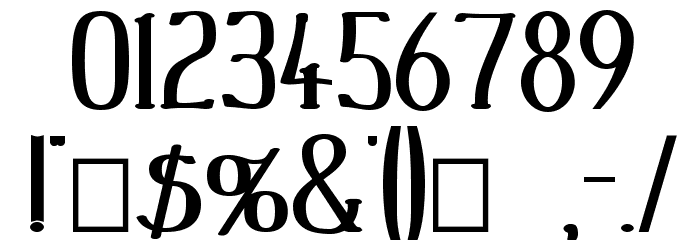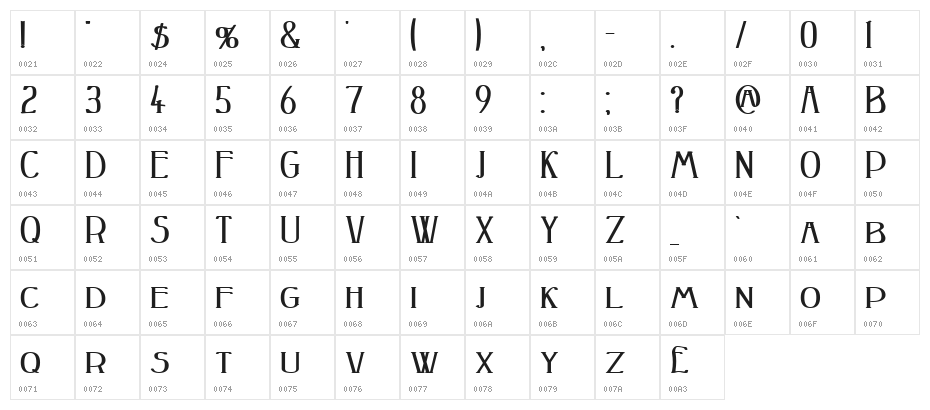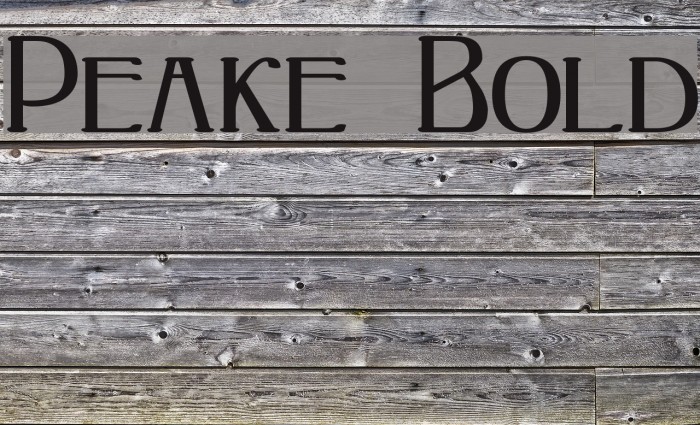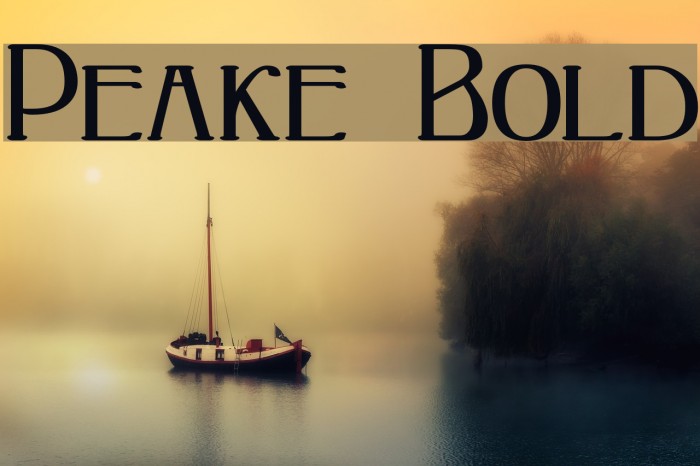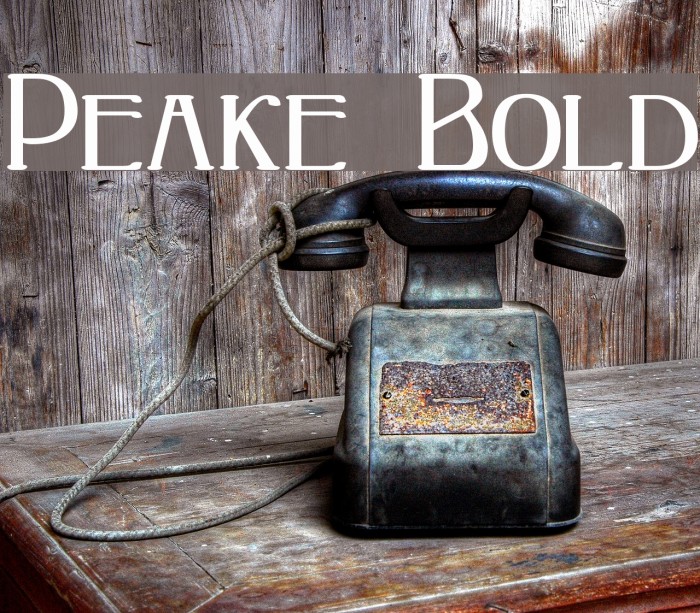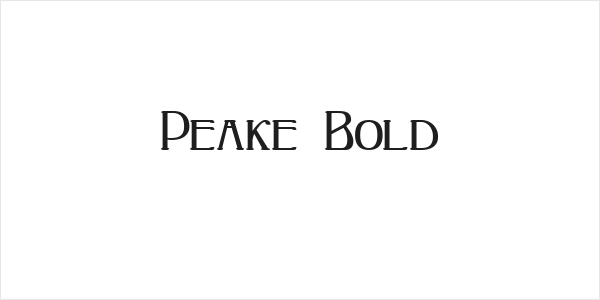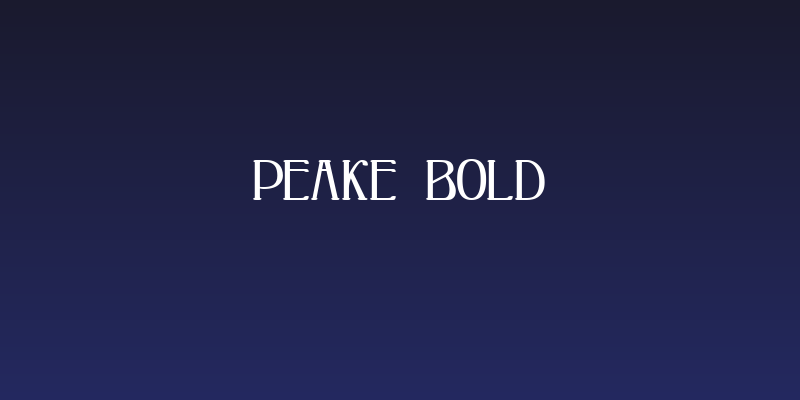
Peake Bold Font
Peake Bold Description
This font features a bold and striking design with a modern twist. The uppercase letters are tall and slightly condensed, giving a sense of elegance and sophistication. The lowercase letters maintain a consistent style, complementing the uppercase with a slightly more rounded appearance. The numbers are clear and easy to read, with a uniform thickness that matches the overall boldness of the font. Special characters are distinct and well-defined, adding versatility to the font's usage. The font's design is both functional and stylish, making it suitable for a variety of applications.